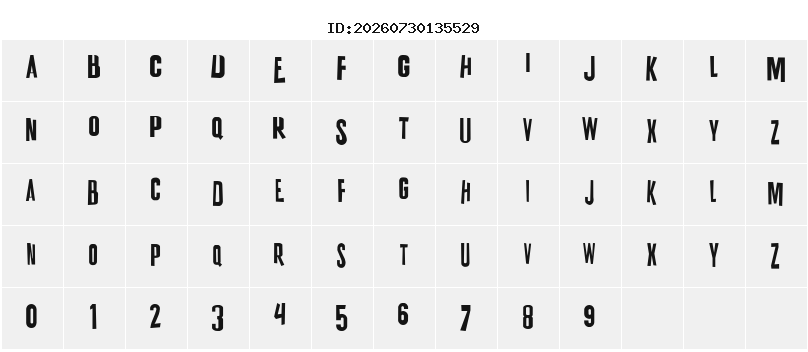
• Font Name: K.P. Duty JL
• Full Font Name: K.P. Duty JL
• Designer: Jeffrey N. Levine
• Description: A non-conforming sans serif, varying in height and stroke width. Based on the title lettering on the Elvis Presley soundtrack album "G.I. Blues".
About K.P. Duty JL.ttf
K.P. Duty JL.ttf is a modern, elegant sans-serif font designed for ultimate readability and visual harmony. Perfect for branding, headlines, web design, and print materials.